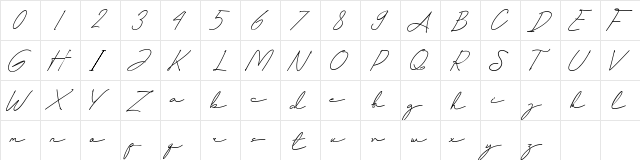
Helleny Regular
| Designer | Jada Akbal |
Design Context for Helleny Typeface
Helleny is a composed and adaptable typeface that performs quietly and consistently across a wide range of design contexts.